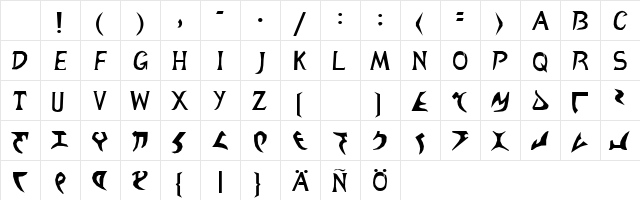
Complete Zigan Trad Okudeska glyph index. Displaying only characters natively supported by Zigan Trad Okudeska font.
Zigan Trad is a composed and adaptable typeface that performs quietly and consistently across a wide range of design contexts.